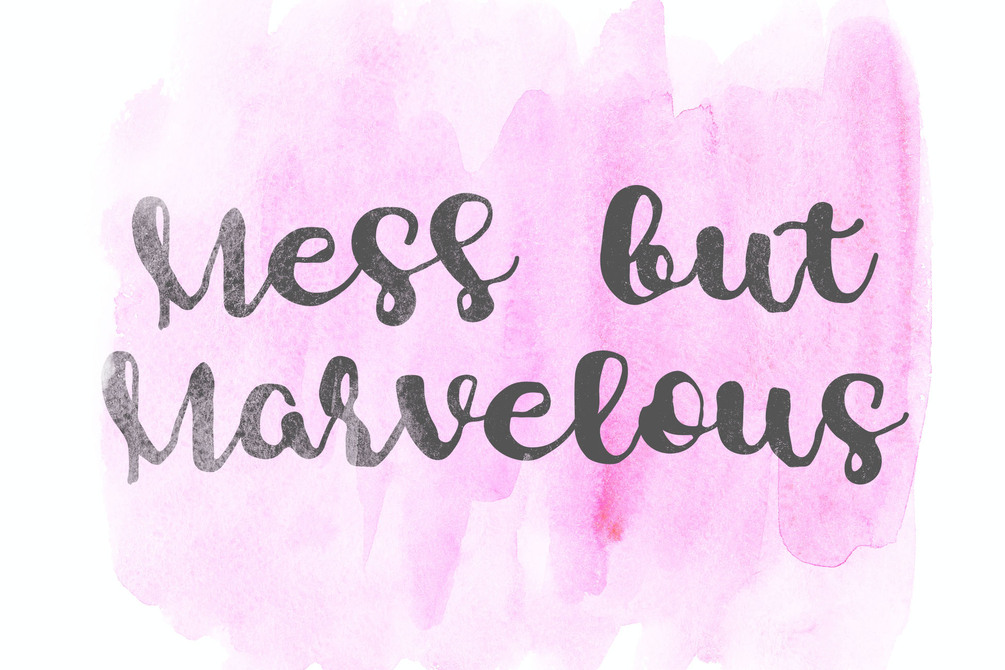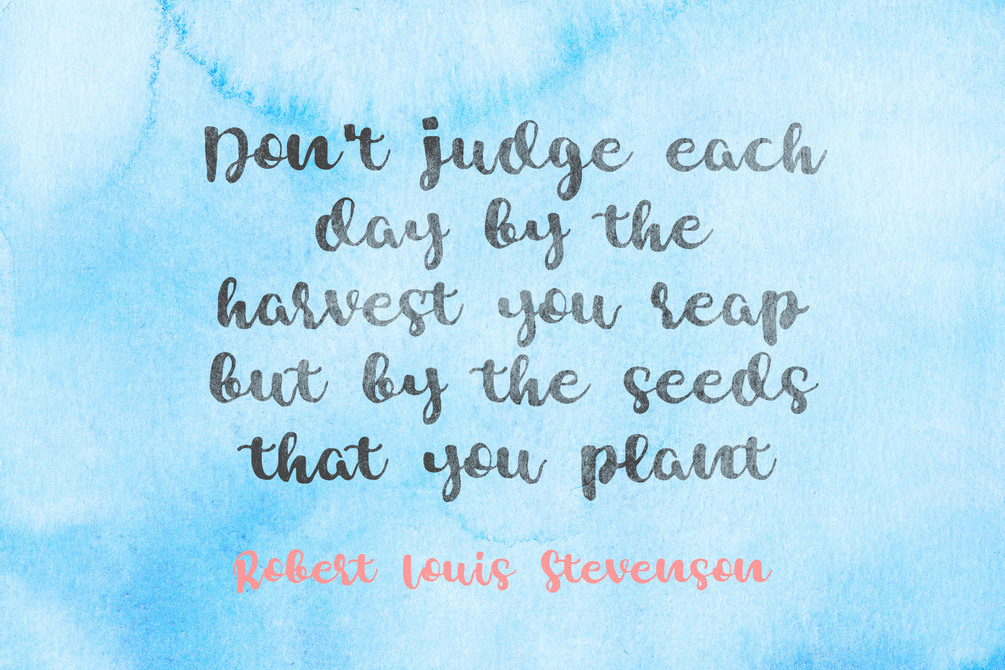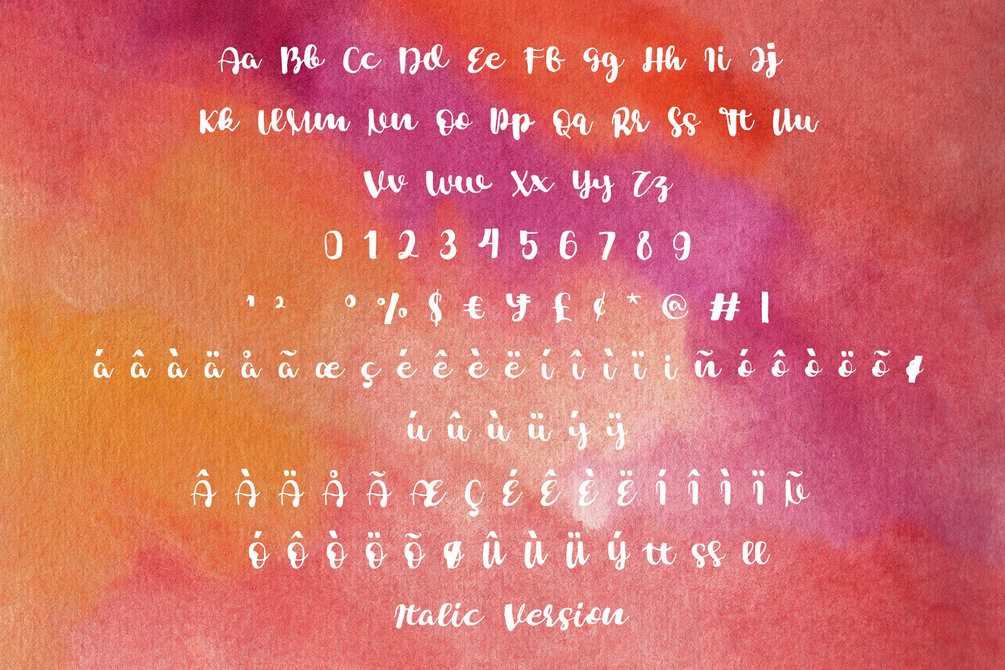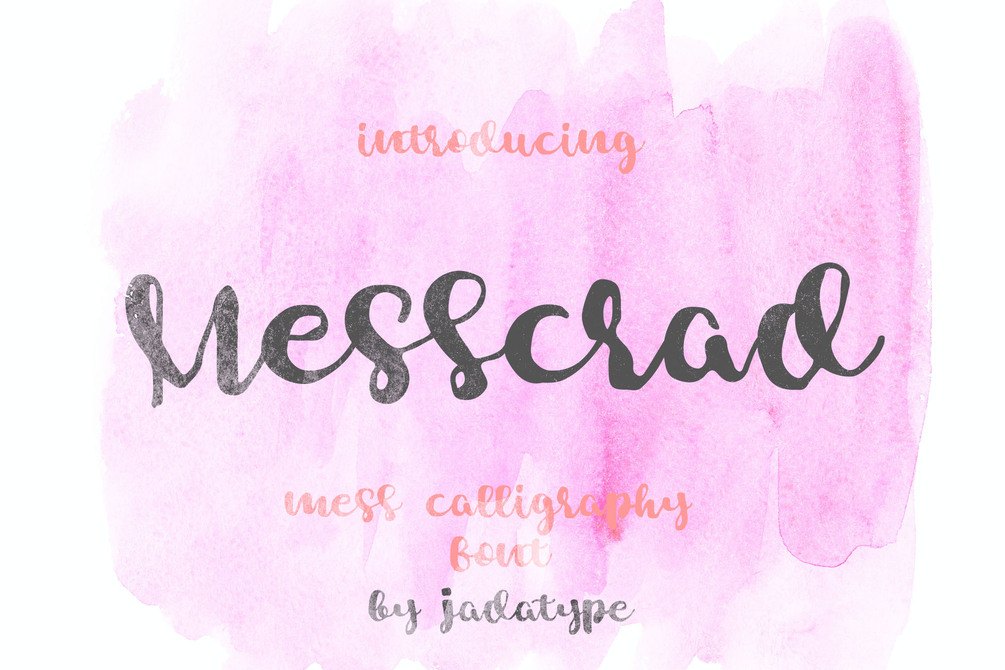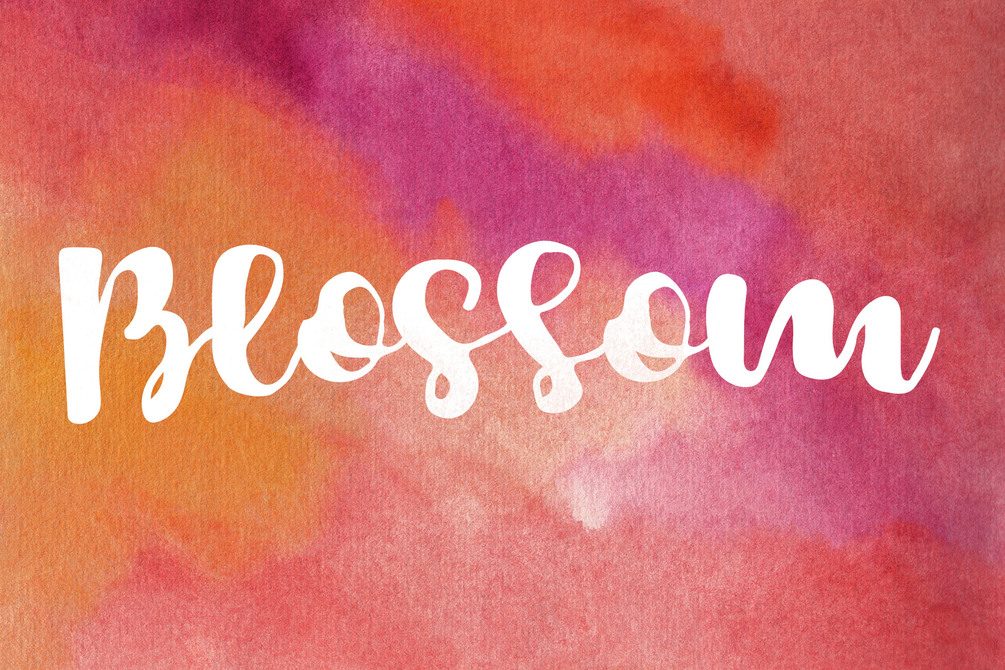
Messcrad Font
Messcrad is a calligraphy font with a mess-handwriting style. suitable for handcraft, social media, products, t-shirt, and so on. contains standard English letters, numbers, punctuation, and several accents that support multilingualism.
• Regular & Italic